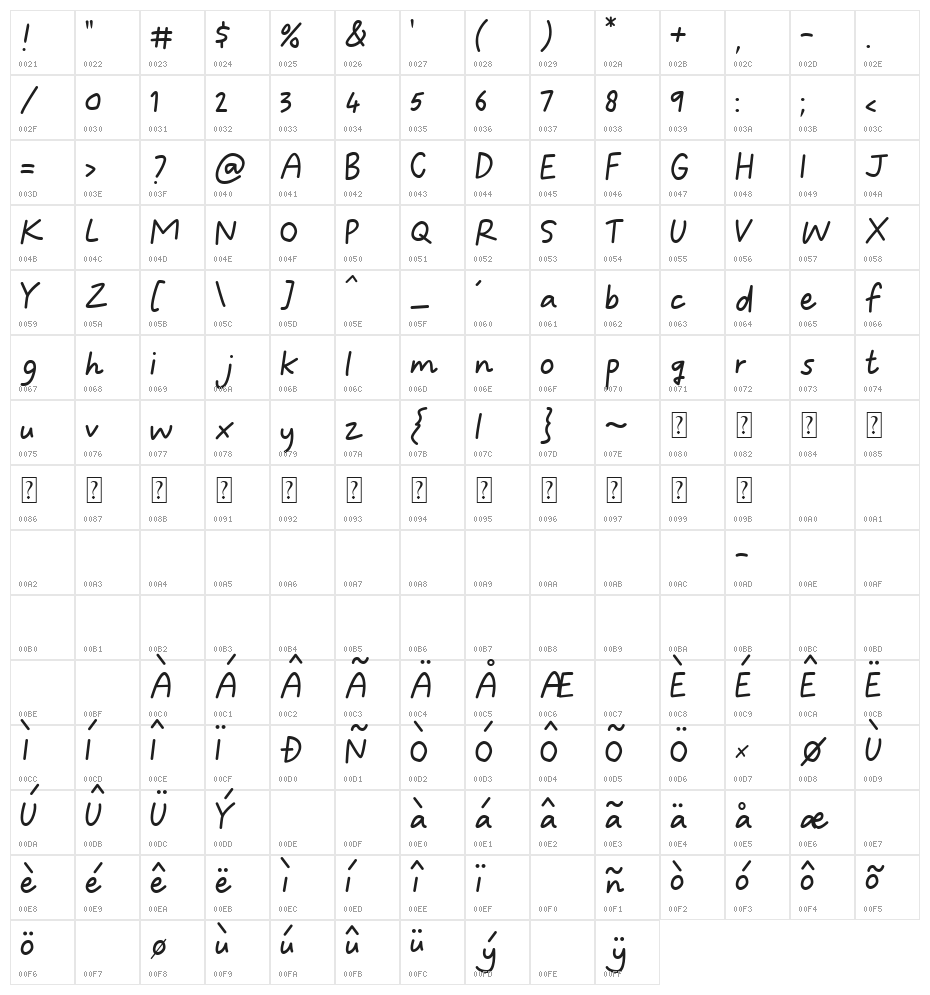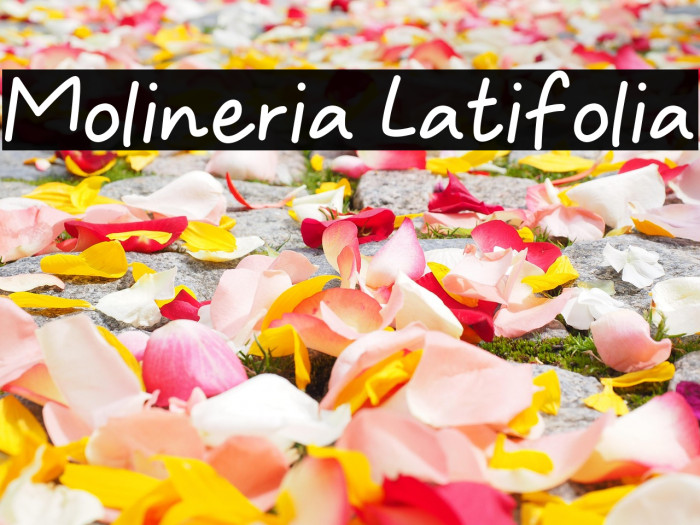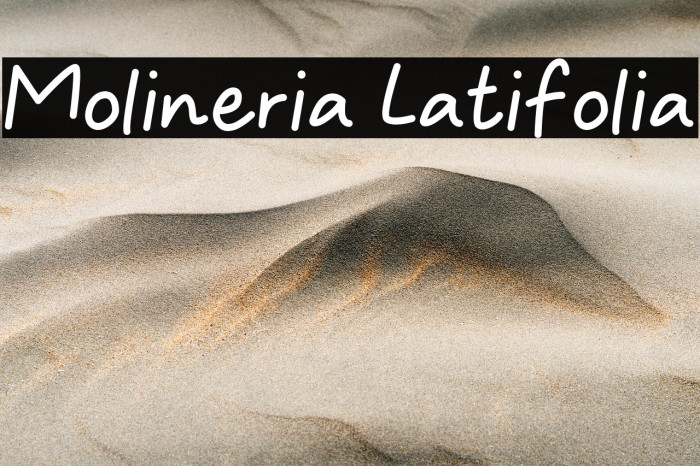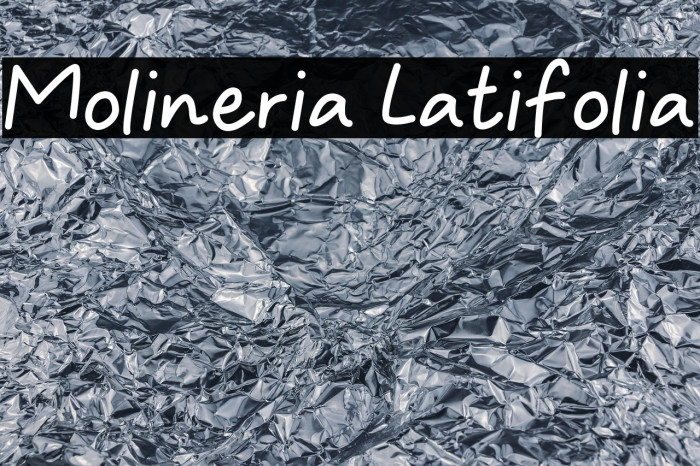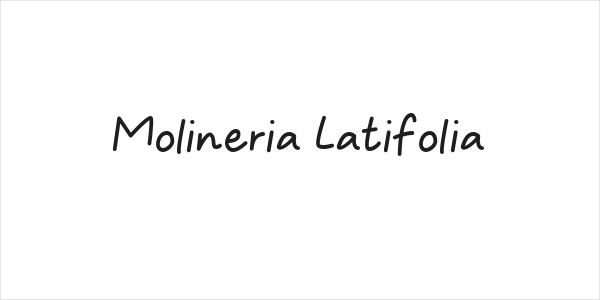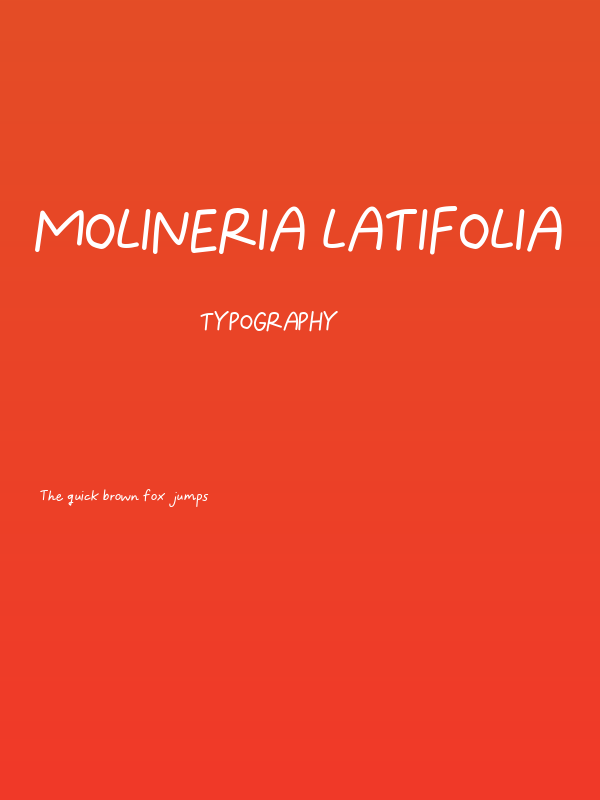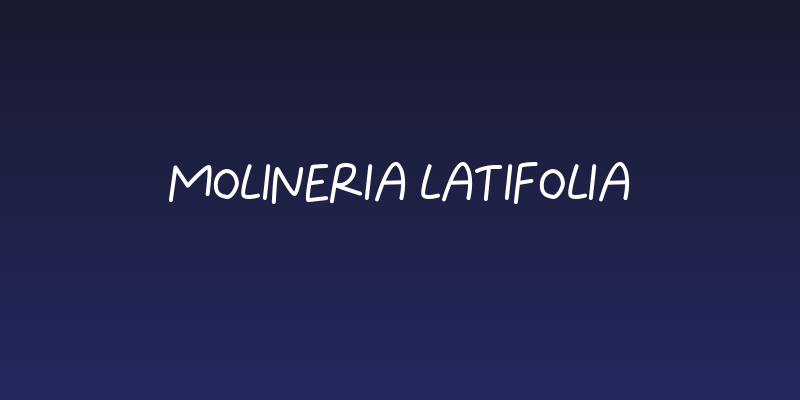
Molineria Latifolia Font
Molineria Latifolia Description
This font features a casual, handwritten style with a playful and informal appearance. The characters are slightly slanted, giving them a dynamic and lively feel. The strokes are smooth and consistent, with rounded edges that enhance its approachable and friendly look. The uppercase and lowercase letters maintain a uniform height, contributing to its readability. The numbers and special characters are designed to match the overall aesthetic, ensuring a cohesive appearance across all elements.
| Proposed Projects | Ideal for greeting cards, children's books, casual branding, and social media graphics. |